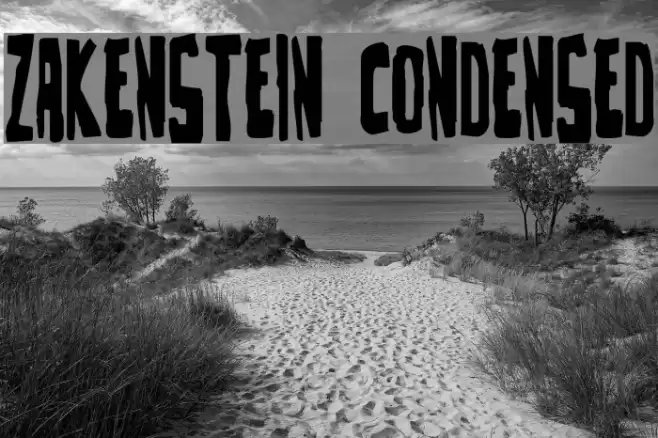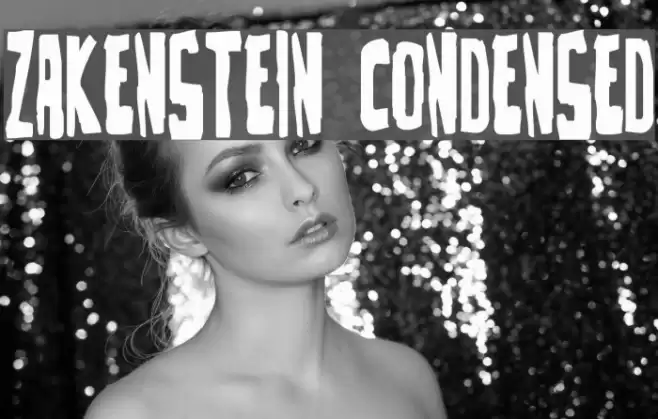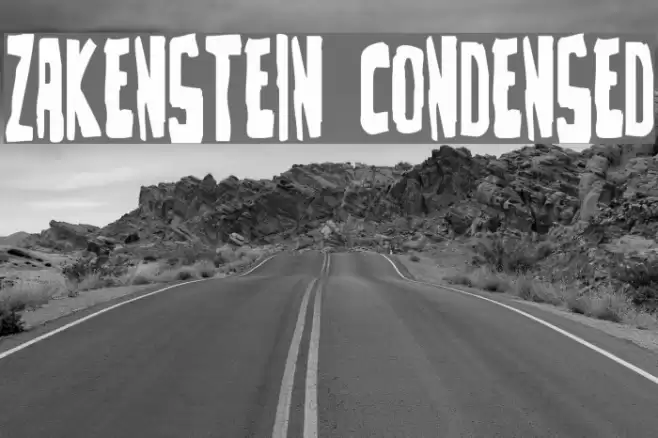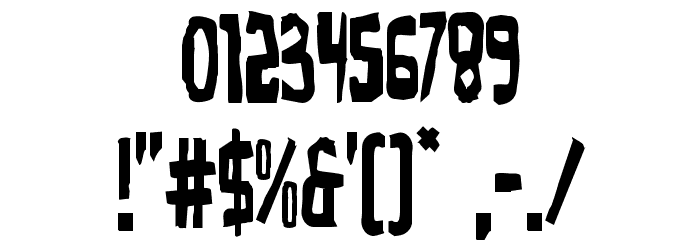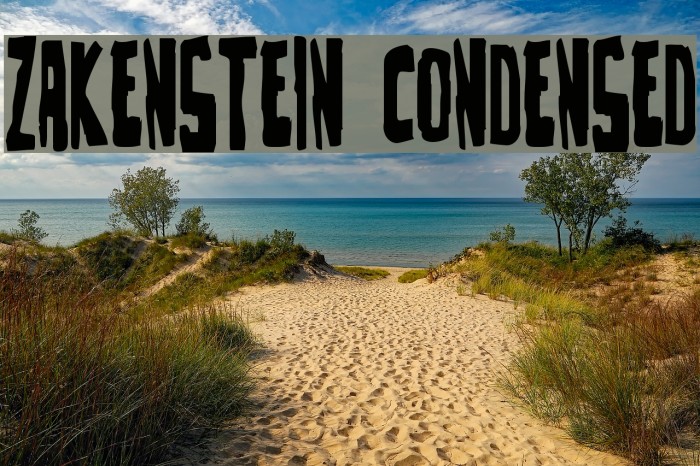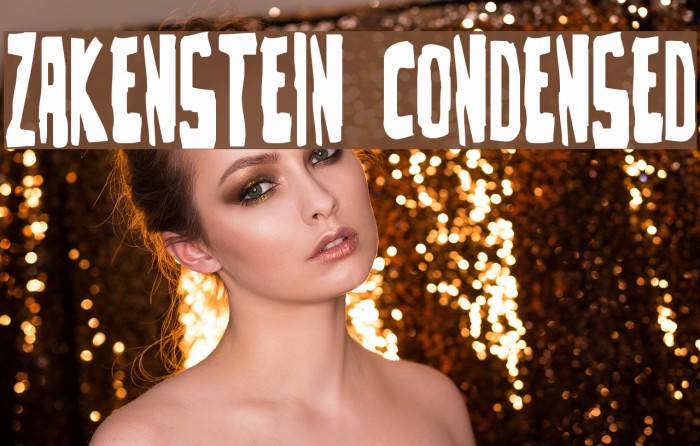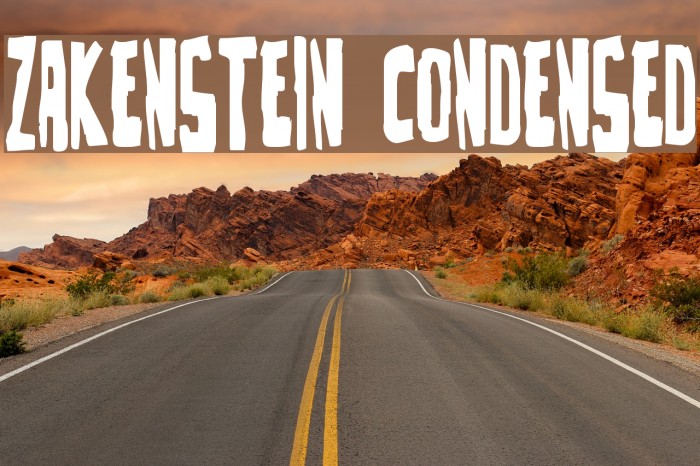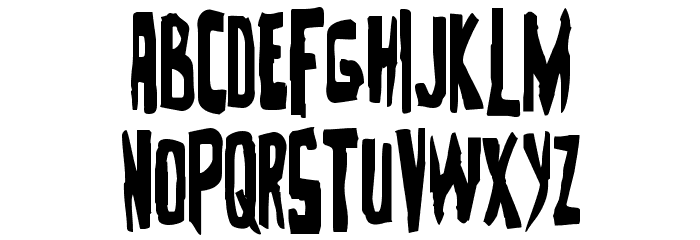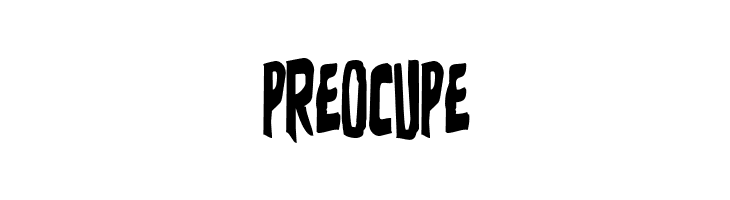
Zakenstein Condensed Font
Zakenstein Condensed Description
This font features a bold and condensed style with a unique, jagged appearance that gives it a hand-drawn, edgy feel. The uppercase and lowercase letters maintain a consistent height, contributing to its compact look. The characters are slightly irregular, adding to its distinctive, artistic flair. The numbers and special characters follow the same design principles, ensuring uniformity across all glyphs. Its sharp edges and condensed form make it stand out, ideal for grabbing attention in various design contexts.
A bold, condensed font with a jagged, hand-drawn style from Uncategorized fonts.
- Proposed Projects: Ideal for horror-themed posters, edgy branding, album covers, and creative event invitations.